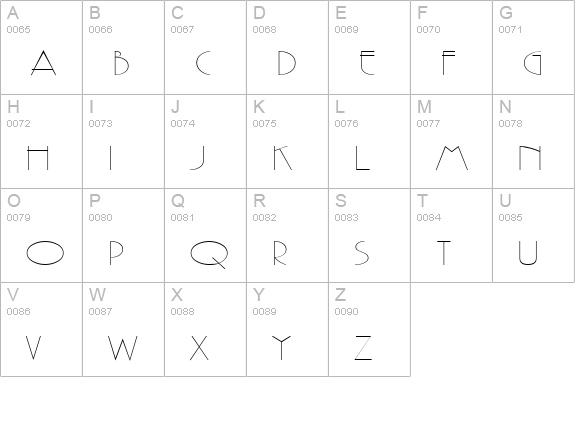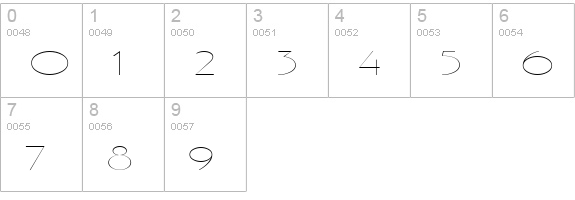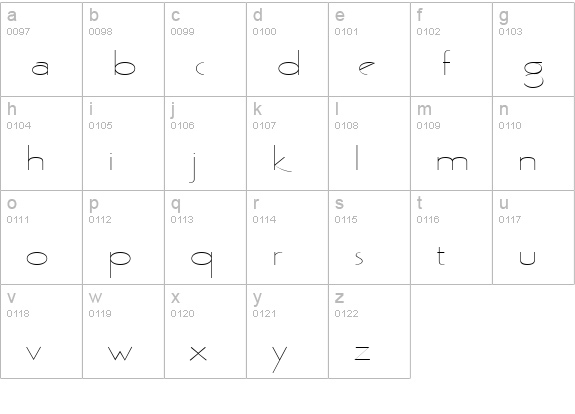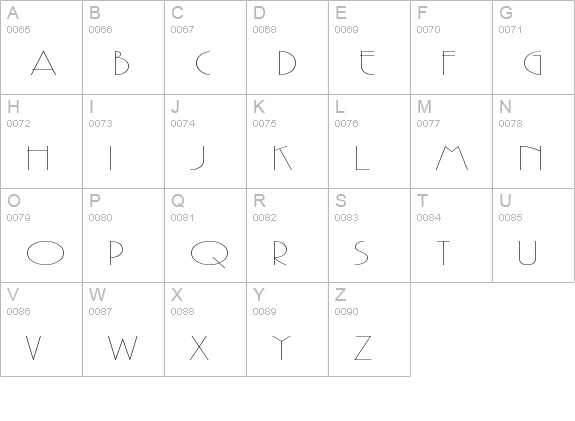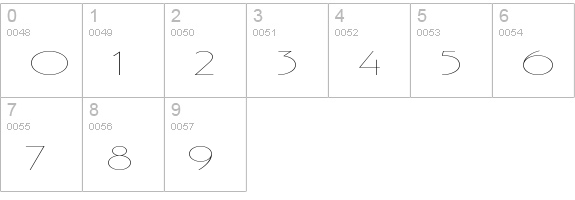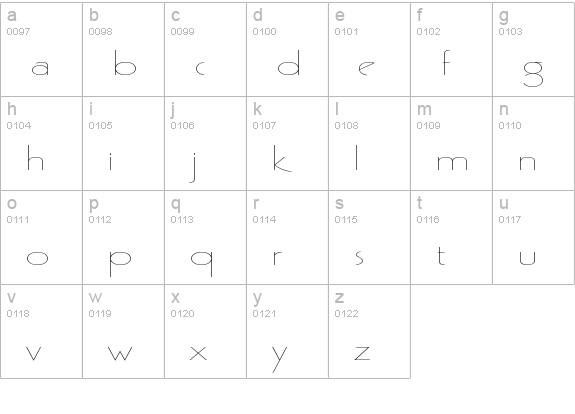
Gaston Extended Normal is the standard, neutral, extended-width variant in the Gaston typeface family \xE2\x80\x94 well suited to general body text, paragraphs, and standard typographic work.
Gaston Extended Normal font is a modern and stylish typeface that exudes sophistication and elegance. Its clean lines and sleek design make it perfect for a wide range of design projects, from branding to editorial design. This versatile font is sure to make a statement and elevate any design it is used in. Best of all, Gaston Extended Normal font is available for free download at FontsMarket.com. This means you can easily access and use this beautiful font in your projects without any cost. Don't miss out on the opportunity to add Gaston Extended Normal font to your font collection today!